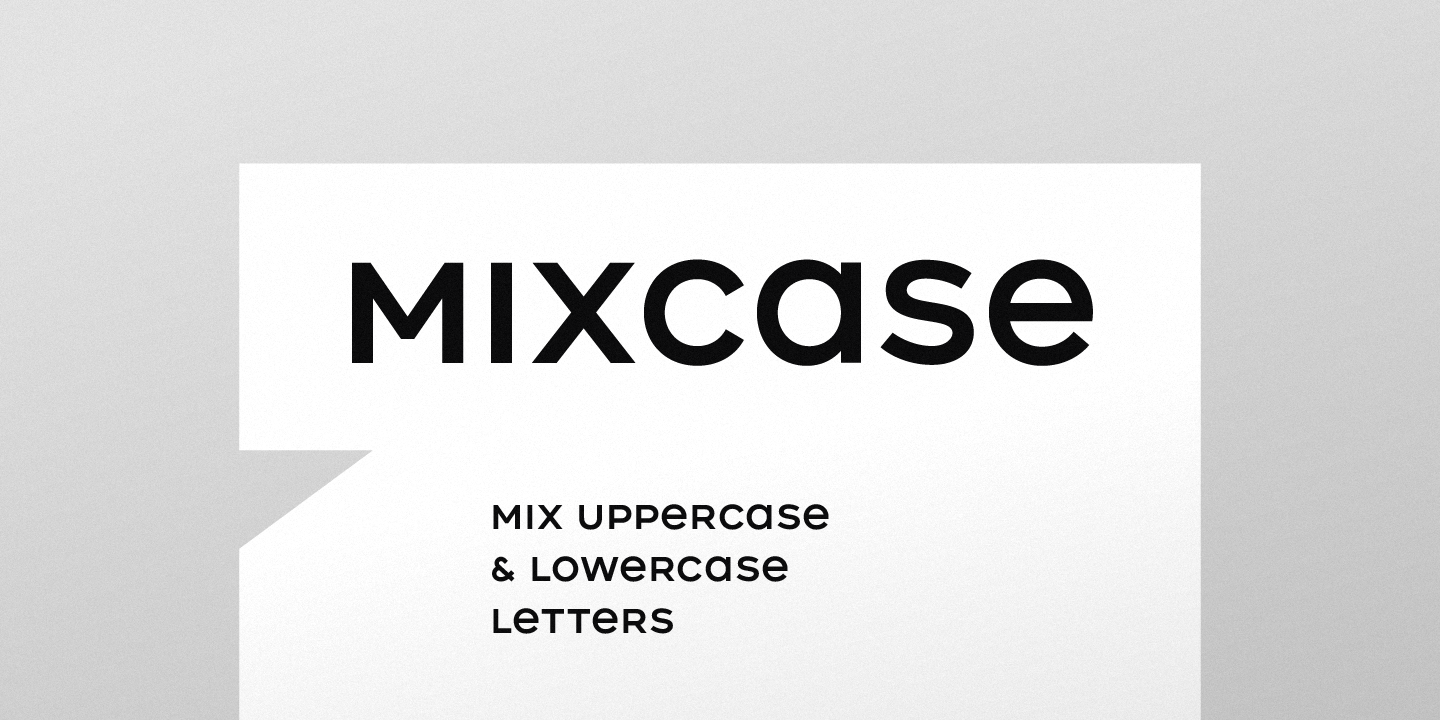
Mixcase Font is perfect for creative design agencies, experimental typography projects, unconventional brand communications, artistic portfolio presentations, innovative software interfaces, and bold creative expression campaigns. Its dynamic character makes it ideal for graphic designers, creative agencies, experimental artists, innovative tech companies, and any application requiring versatile typography that conveys creative flexibility, typographic innovation, and the dynamic energy of mixed-case lettering and unconventional design approaches.
Mixcase Font is exciting because it celebrates typographic freedom and creative expression through dynamically mixed letterforms that break traditional capitalization rules and embrace the artistic potential of unconventional letter combinations. Its mixed proportions and innovative details reflect the creative courage to challenge typographic conventions and the satisfying freedom that comes from experimental design approaches, making it perfect for brands pushing creative boundaries. The font's mixed character transforms communications into expressions of typographic rebellion.
Mixcase Font family includes experimentally-designed weight variations typically featuring Light, Regular, Medium, and Bold options with mixed styling that maintains creative authenticity. The family often incorporates experimental symbols, mixed elements, and innovative characters designed for unconventional design applications, providing designers with comprehensive tools for creating authentic, mixed-case-focused typographic compositions.
When selecting experimental typography solutions, Mixcase Font Free Download represents an exceptional choice for creative and innovative design projects. This dynamic typeface brings instant creative authenticity to any design, making it invaluable for experimental designers, creative agencies, and innovative brands celebrating typographic freedom. Whether you're developing experimental brand identity, creating unconventional marketing materials, or designing innovative interface designs, Mixcase Font provides the creative flexibility and typographic innovation essential for expressing creative freedom in today's experimental design marketplace.